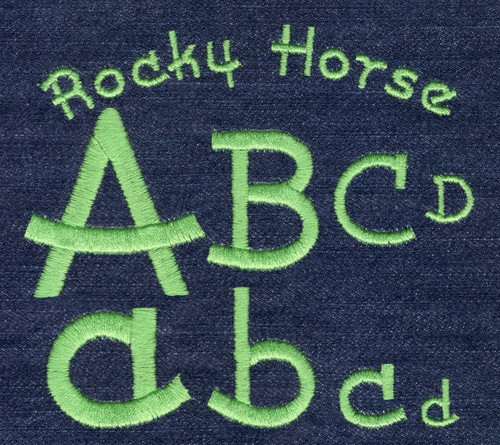
454 Rocky Horse Satin Font
Rocky Horse Satin Font comes in 0.5", 1", 1.5" and 2" heights based on the capital "A". All sizes are finished in Satin Stitching and include uppercase letters, lowercase letters, numbers and four punctuation marks.